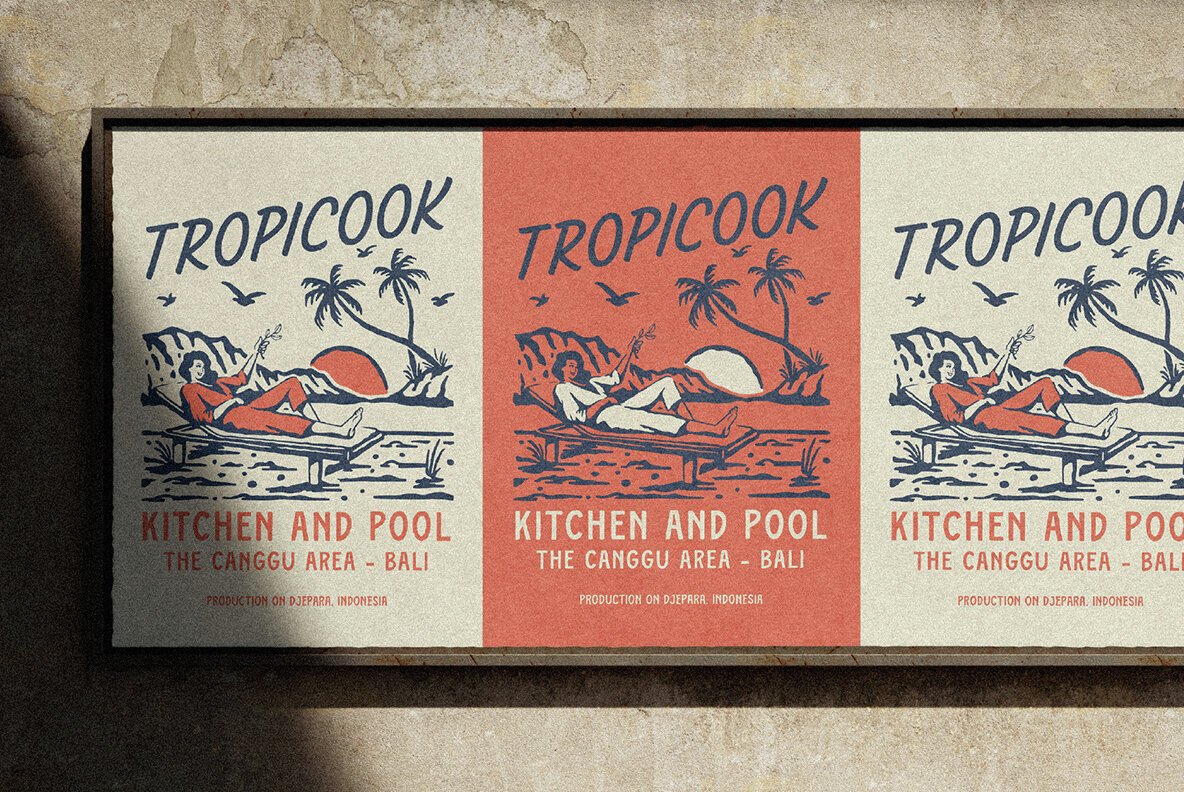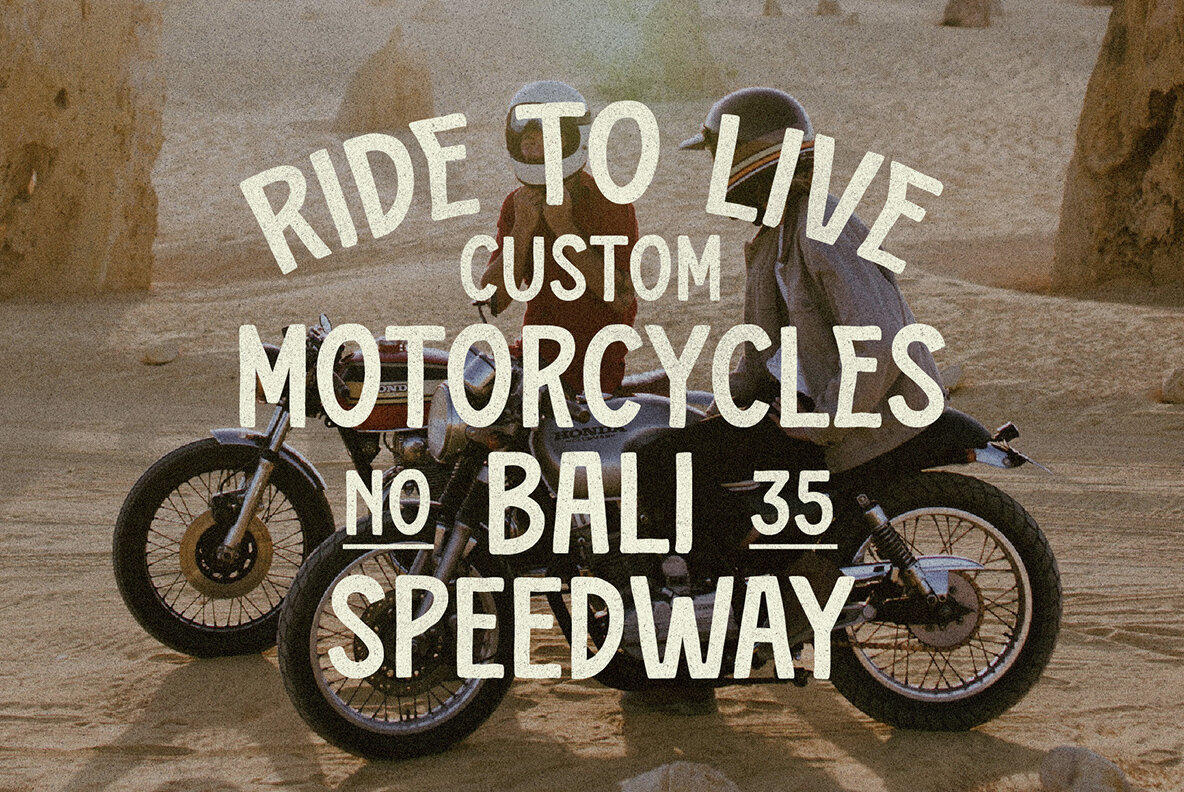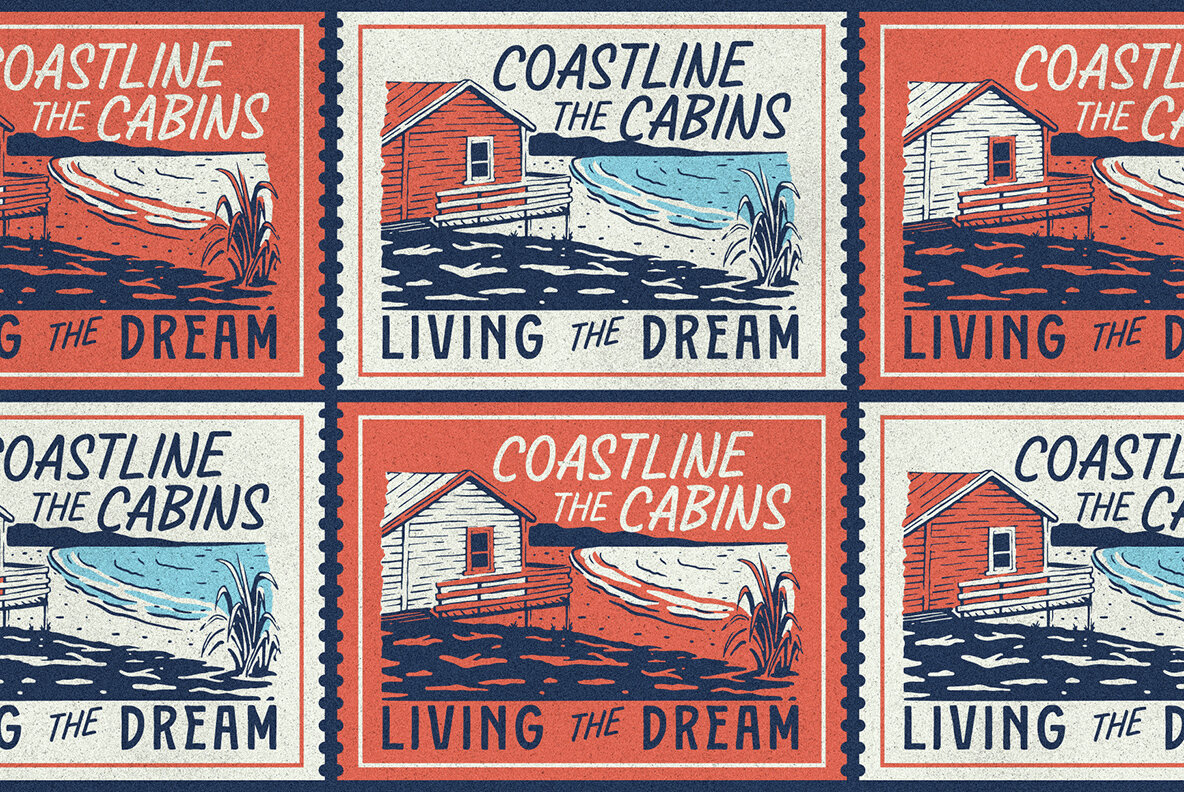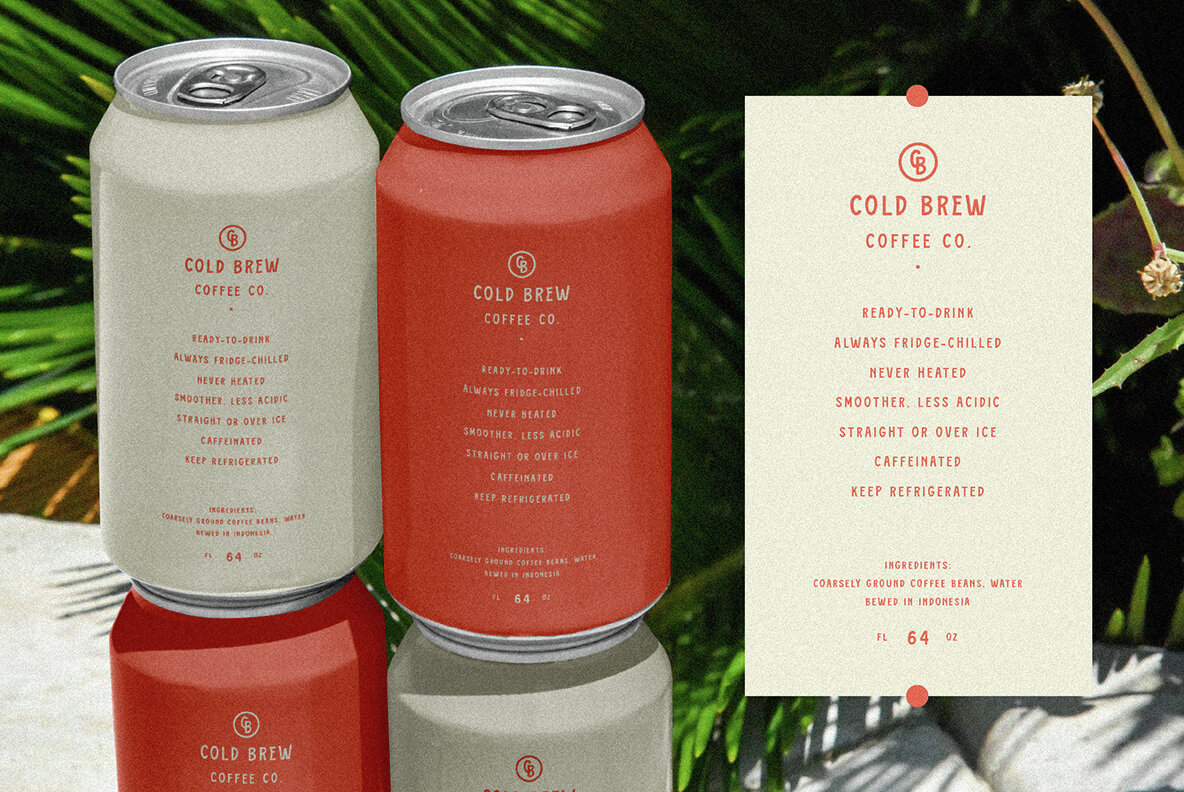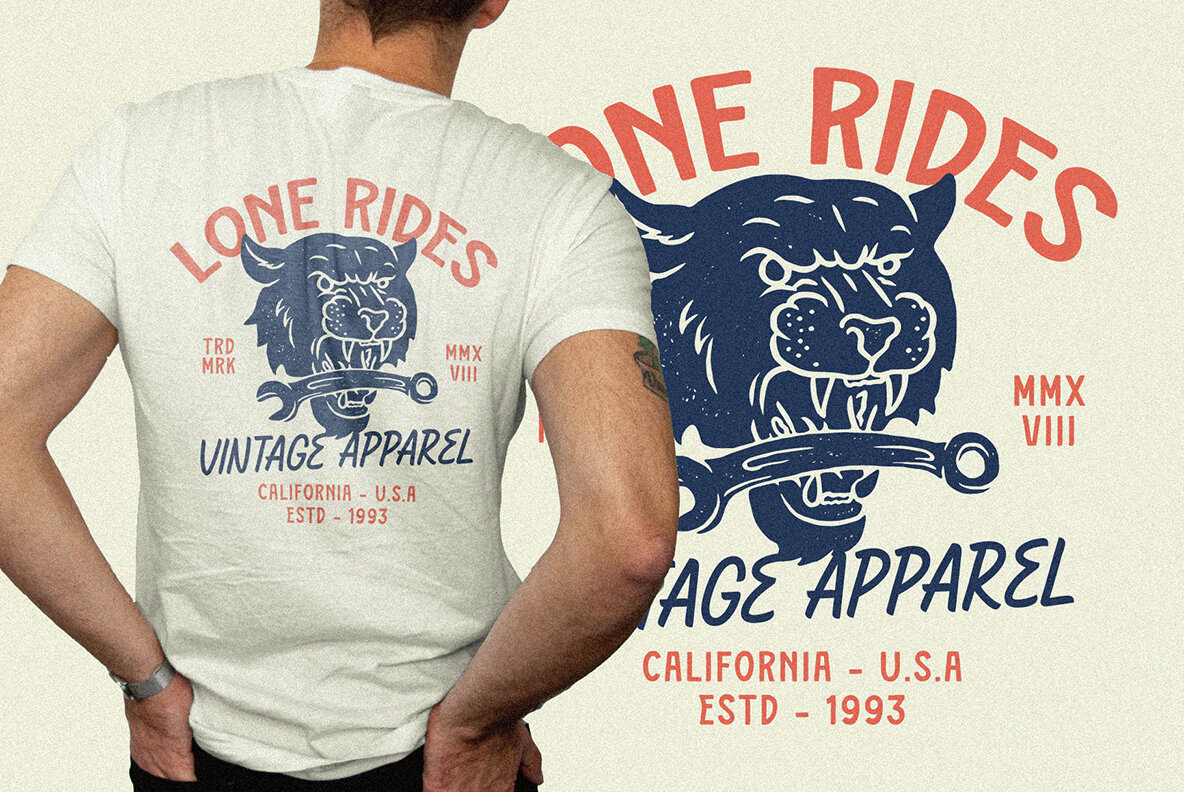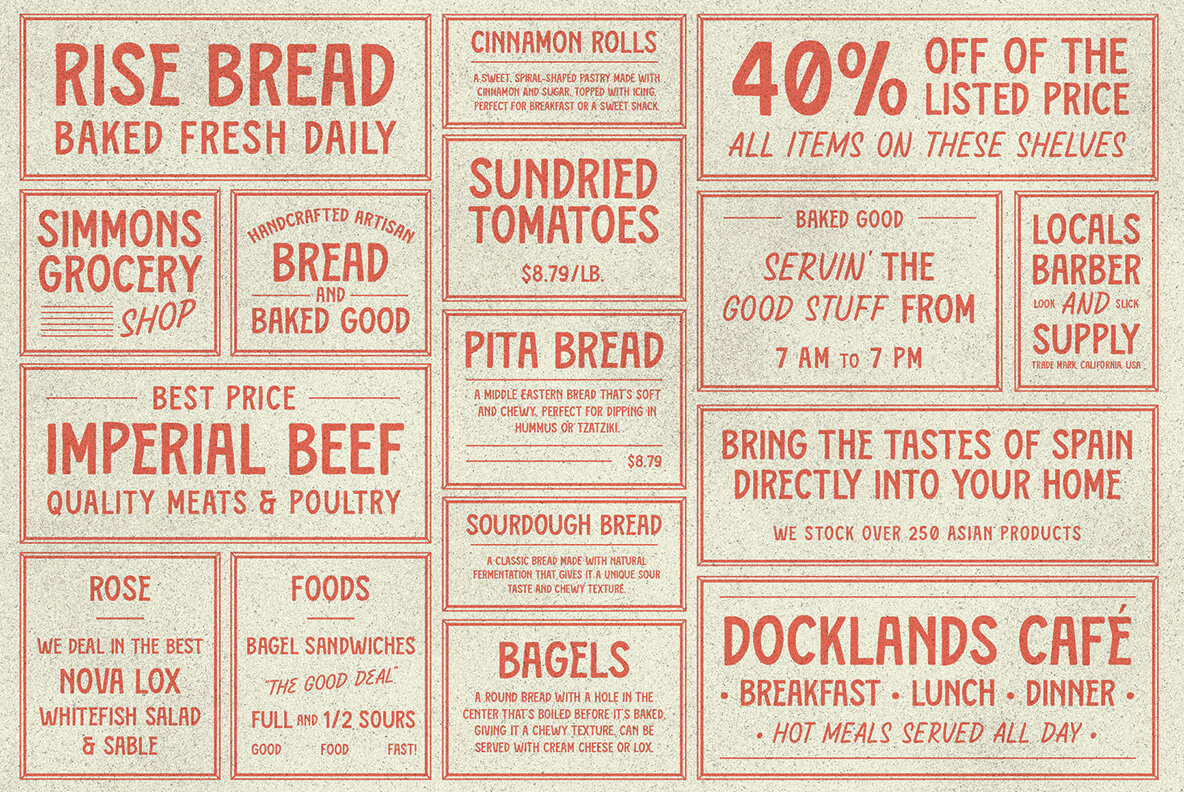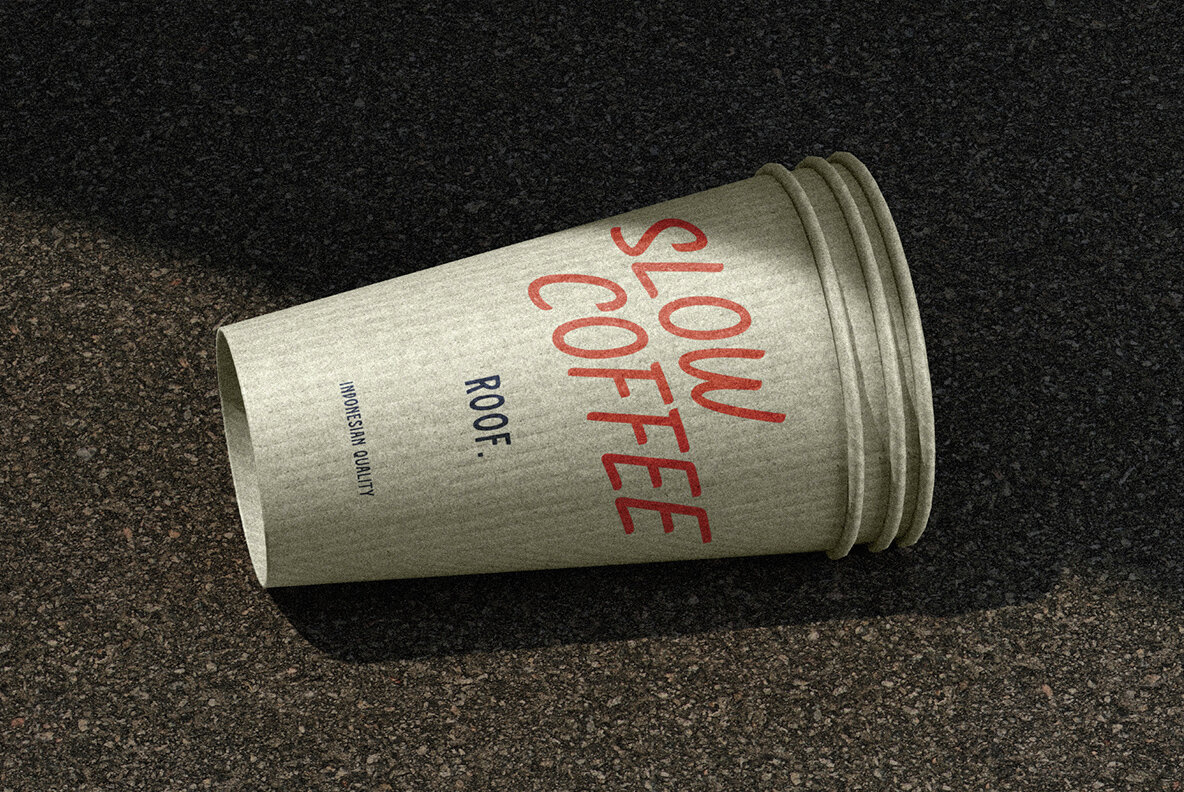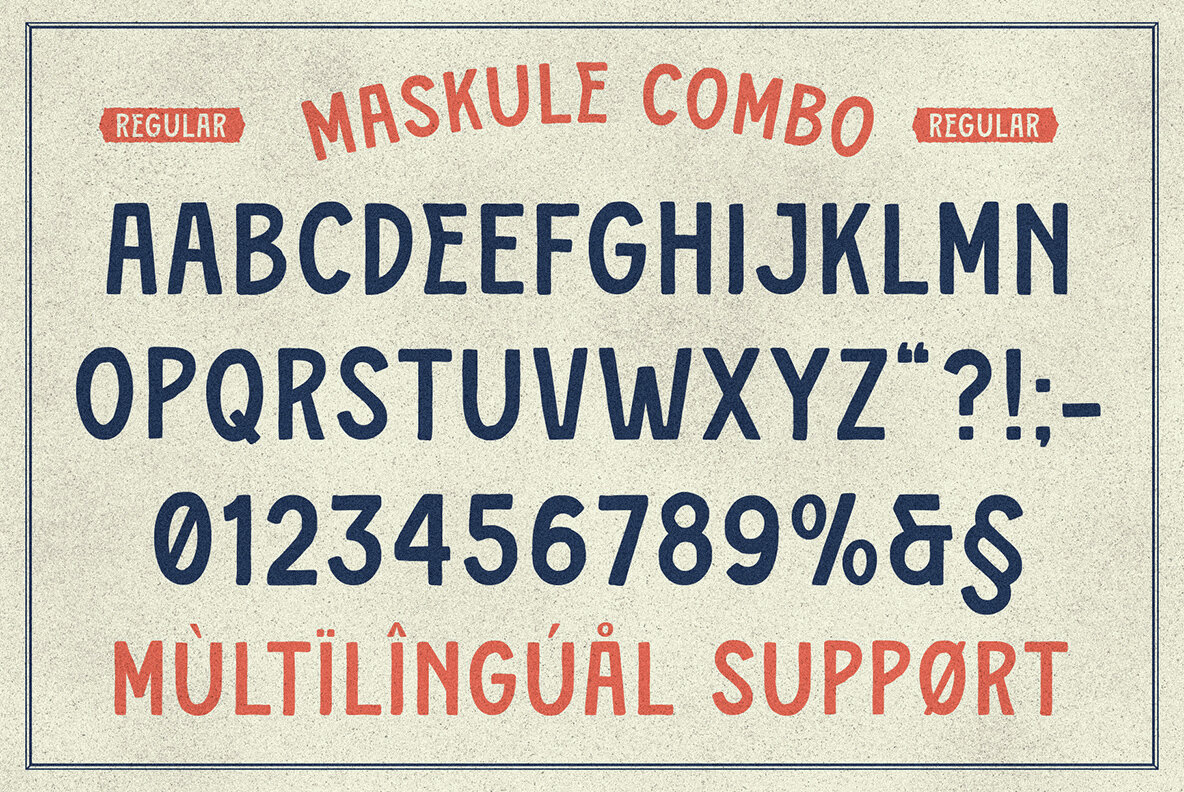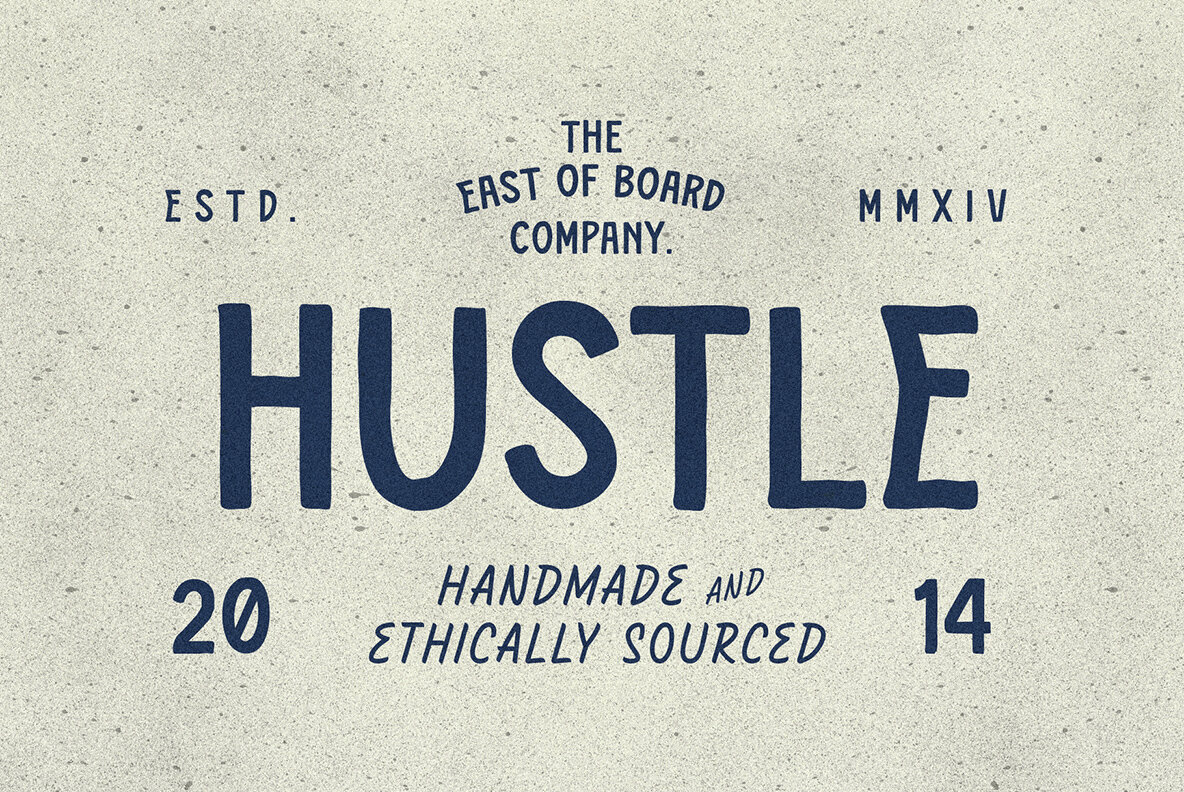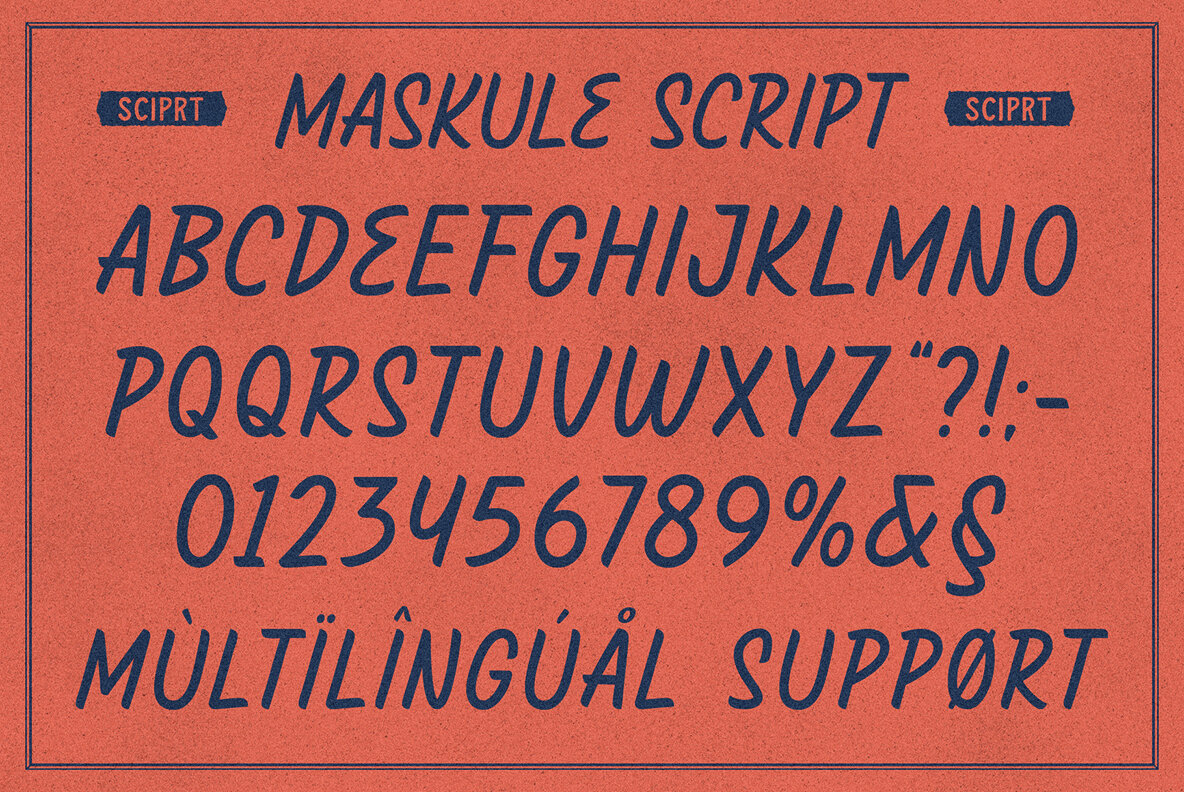
Maskule Combo Font
Maskule Combo is a vintage combination pairing font that captures the essence of hand-painted signs. It features two fonts: Maskule Regular and Script, which work harmoniously together. With its charming and nostalgic style, it's the perfect choice for creating designs with a vintage theme. Whether you're working on headings, flyers, greeting cards, product packaging, book covers, printed quotes, logotypes, or album covers, Maskule Combo will add a touch of timeless appeal to your projects.